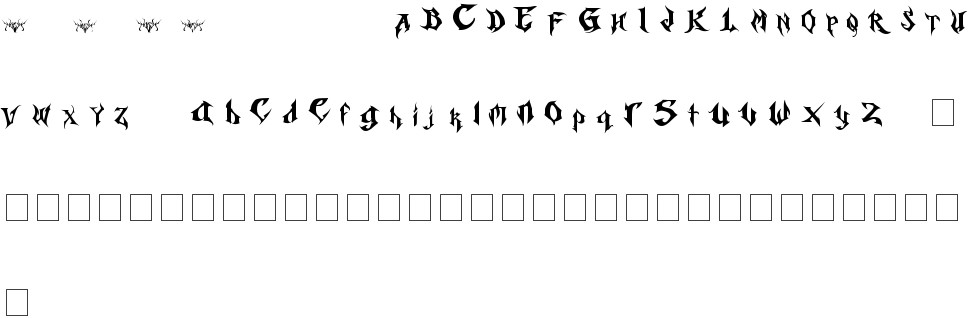
Download Horst Blackletter Font SVG. Horst blackletter by horst type foundry. Please enter your email address receive a free font daily from fonts101.com in your email! Horst blackletter was created by horst type foundry and is licensed as demo. Horst blackletter, horst type foundry, modern, gothic, horst blackletter demo.ttf font archive files. By christopher horst on sep 06, 2018. It is a western calligraphy style that was used in europe from 1100s to the 1600s. Download it free at fontriver.com! This gothic font has 57 glyphs count number in variety and 2048 units of this font are equal to 1em. Looking for horst blackletter font? Test drive, character map, etc. You can download this font for free from right here for your personal use only. Download horst blackletter regular font | 1 style free font. Horst blackletter demo christopher horst website truetypepersonal use. Fonts horst blackletter font download for free, in ttf for windows and mac! Blackletter fonts have letters that are very bold and ornate.
Download Horst Blackletter Font Fontsme Com. Looking for horst blackletter font? By christopher horst on sep 06, 2018. You can download this font for free from right here for your personal use only. Test drive, character map, etc. It is a western calligraphy style that was used in europe from 1100s to the 1600s. This gothic font has 57 glyphs count number in variety and 2048 units of this font are equal to 1em. Horst blackletter, horst type foundry, modern, gothic, horst blackletter demo.ttf font archive files. Download it free at fontriver.com! Blackletter fonts have letters that are very bold and ornate. Horst blackletter by horst type foundry. Fonts horst blackletter font download for free, in ttf for windows and mac! Download horst blackletter regular font | 1 style free font. Please enter your email address receive a free font daily from fonts101.com in your email! Horst blackletter demo christopher horst website truetypepersonal use. Horst blackletter was created by horst type foundry and is licensed as demo.
Blastrick Vintage Font Befonts Com. Horst blackletter was created by horst type foundry and is licensed as demo. Horst blackletter, horst type foundry, modern, gothic, horst blackletter demo.ttf font archive files. Horst blackletter by horst type foundry. It is a western calligraphy style that was used in europe from 1100s to the 1600s. Please enter your email address receive a free font daily from fonts101.com in your email! Blackletter fonts have letters that are very bold and ornate. Horst blackletter demo christopher horst website truetypepersonal use. Download horst blackletter regular font | 1 style free font. This gothic font has 57 glyphs count number in variety and 2048 units of this font are equal to 1em. Fonts horst blackletter font download for free, in ttf for windows and mac! You can download this font for free from right here for your personal use only. Looking for horst blackletter font? Test drive, character map, etc. By christopher horst on sep 06, 2018. Download it free at fontriver.com!
Looking for horst blackletter font? Truetype and opentype fonts available. Horst blackletter was created by horst type foundry and is licensed as demo. Looking for horst blackletter font? 1001 free fonts offers a huge selection of free fonts. H horst blackletter demo.ttf 27 kb |. Horst blackletter by horst type foundry. The horst blackletter demo font contains 653 beautifully designed characters. This gothic font has 57 glyphs count number in variety and 2048 units of this font are equal to 1em. Download horst blackletter font (1 styles).